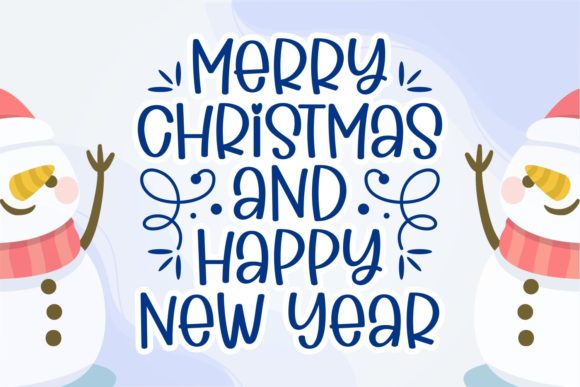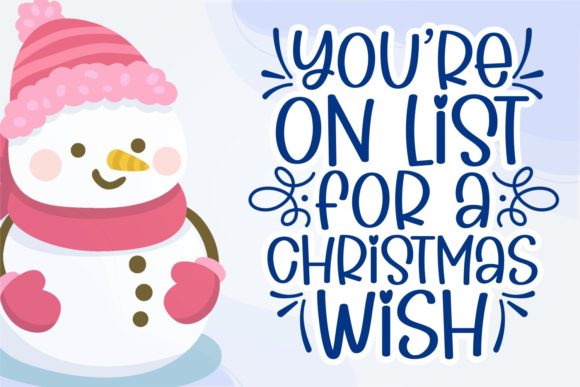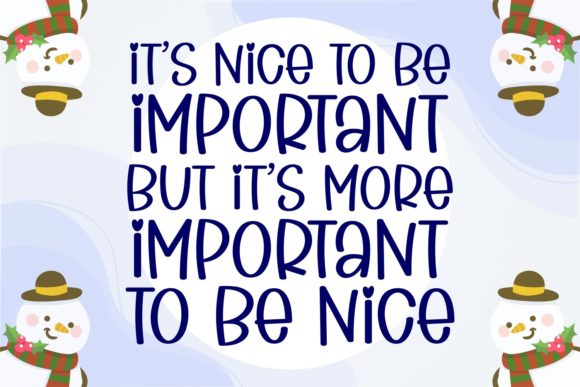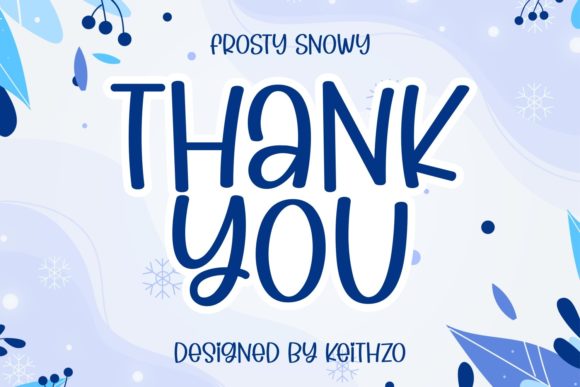
Frosty Snowy Font: Add a Touch of Winter Wonder to Your Designs
Are you looking for a font that can add a personal and realistic feel to your designs? Look no further than the Frosty Snowy Font! This cute and playful handwritten font is perfect for all your chalkboard quotes, teaching materials, and winter-themed designs. In this article, we’ll dive into the features and benefits of the Frosty Snowy Font and explore how you can use it to take your designs to the next level.
What is Frosty Snowy Font?
Frosty Snowy Font is a unique and charming handwritten font that mimics the look of chalkboard writing. Its authentic and rustic feel makes it perfect for designers and crafters who want to add a touch of warmth and personality to their designs. The font is highly versatile and can be used for a wide range of projects, from educational materials and quotes to winter-themed designs and crafts.
Key Features of Frosty Snowy Font
- Cute and Playful Design: Frosty Snowy Font has a playful and whimsical design that is sure to capture the attention of your audience.
- Authentic Look: The font has an authentic chalkboard look that adds a personal and realistic feel to your designs.
- Handwritten Style: The font is handwritten, making it perfect for designs that require a personal touch.
- Highly Versatile: Frosty Snowy Font can be used for a wide range of projects, from educational materials to winter-themed designs.
Benefits of Using Frosty Snowy Font
So, why should you use Frosty Snowy Font in your designs? Here are just a few benefits:
- Adds a Personal Touch: The font’s handwritten style and authentic look add a personal touch to your designs, making them more relatable and engaging.
- Perfect for Winter Designs: Frosty Snowy Font is perfect for winter-themed designs, such as holiday cards, snowflakes, and winter quotes.
- Great for Educational Materials: The font’s chalkboard look makes it perfect for educational materials, such as worksheets, posters, and presentations.
- Easily Readable: The font is highly legible, making it easy to read and understand.